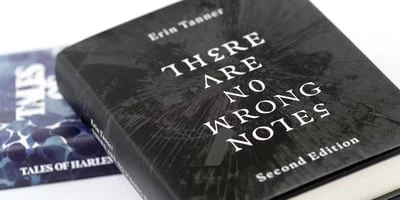
Masqualero Font
The Masqualero Font is a strikingly bold and charismatic display typeface, instantly recognizable for its distinctive, often exaggerated serifs, high contrast, and an undeniable sense of dramatic flair. Imagine its powerful letterforms commanding attention on jazz club posters, adding a sophisticated yet edgy vibe to luxury fashion editorials, or creating impactful titles for avant-garde film festivals and artistic events. Its unique blend of classic elegance and audacious modernity also makes it an excellent choice for high-end product packaging, sophisticated magazine covers, impactful advertising campaigns, and any design that aims to make a memorable, artistic statement. Whether you're seeking a look that's both refined and rebellious, or a bold visual identity with a touch of the dramatic, Masqualero Font delivers with its unmistakable personality, ensuring your visuals are both intriguing and truly unforgettable.
What makes Masqualero Font so exciting is its audacious ability to push the boundaries of traditional serif design, creating a type style that is both historically informed and refreshingly contemporary. It offers designers the power to infuse their projects with a deep sense of artistic confidence and a dramatic presence that sets them apart. This font isn't just about conveying text; it's about making a profound visual impact, evoking a specific mood, and adding a layer of sophisticated intrigue to your creative work. It truly allows designers to craft narratives that are visually arresting and emotionally resonant, making it an invaluable asset for those who want their designs to speak with authority and a unique artistic voice.
The Masqualero Font family is typically structured to offer a range of weights and styles that amplify its distinctive and dramatic appeal. Beyond the primary Masqualero Regular, you might find companion styles such as a more impactful Masqualero Bold for even stronger emphasis, or perhaps Masqualero Black for maximum visual weight. Given its high-contrast and display nature, the family may also include lighter weights like Masqualero Light or Masqualero Thin which highlight its elegant structure, as well as corresponding Masqualero Italic versions that add a dynamic slant. Some professional versions might also offer alternate characters or ligatures that enhance its decorative potential, particularly for logotypes and large-format headlines. These diverse family members provide designers with the flexibility to establish a clear typographic hierarchy and maintain a consistent, bold, and artfully dramatic aesthetic across all elements of their project, from dominant headlines to supporting graphic elements.
For projects demanding a bold, artistic, and profoundly dramatic flair, consider the captivating Masqualero Font. It's an excellent choice to make your designs truly stand out with unmistakable character.